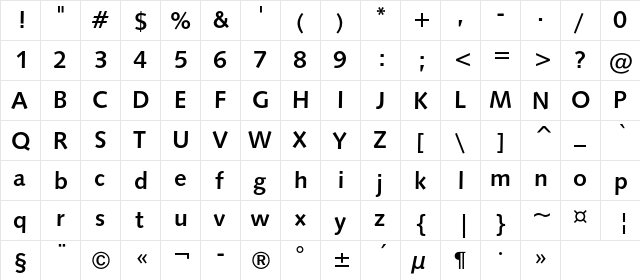
Humanist531C BT Bold
Design Context for Humanist531C BT Typeface
Humanist531C BT takes a measured approach to typography — its balanced proportions and neutral character make it a reliable workhorse for both digital and print work. Its bold stroke weight gives it real presence on the page.
Pro Tip: Pair Humanist531C BT with a font of contrasting weight or personality to build a more expressive typographic hierarchy.